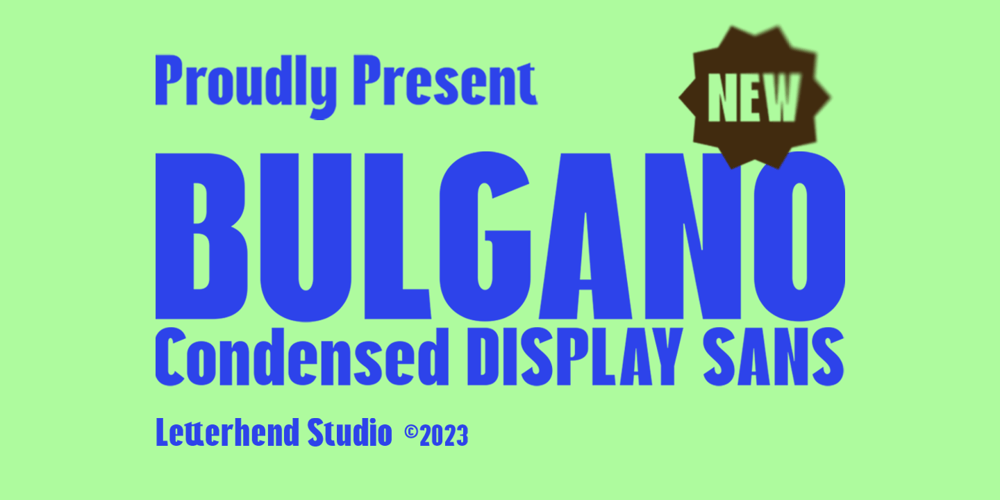
Bulgano Font Family was designed by Hendry Juanda and published by Letterhend. Bulgano contains 2 styles and family package options. Introducing Bulgano is condensed display font with 2 styles, regular and outline. It’s classic & casual looks, make it perfect for everything from labels, logos, magazines, books, greeting / wedding cards, packaging, fashion, make up, stationery, novels, labels or any type of advertising purpose.Features : Uppercase & lowercase Numbers and punctuation Alternates & Ligatures Multilingual PUA encoded We highly recommend using a program that supports OpenType features and Glyphs panels like many of Adobe apps and Corel Draw, so you can see and access all Glyph variations.